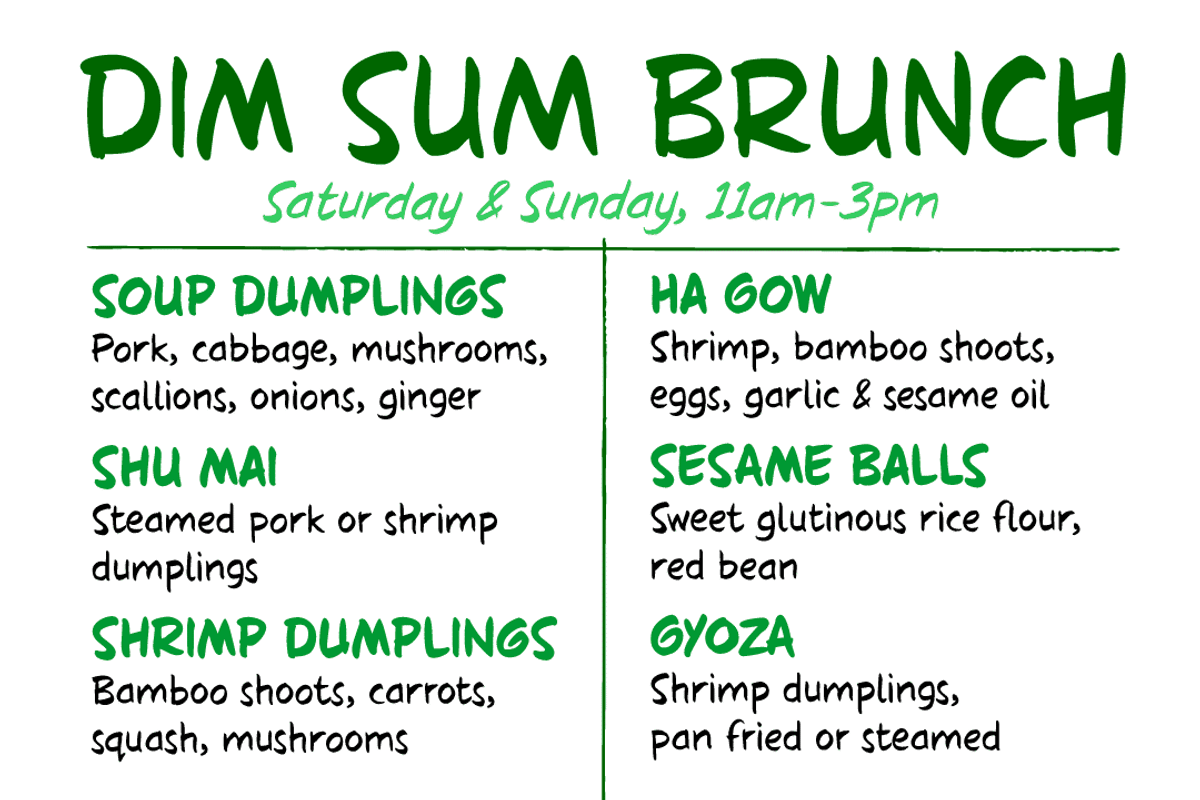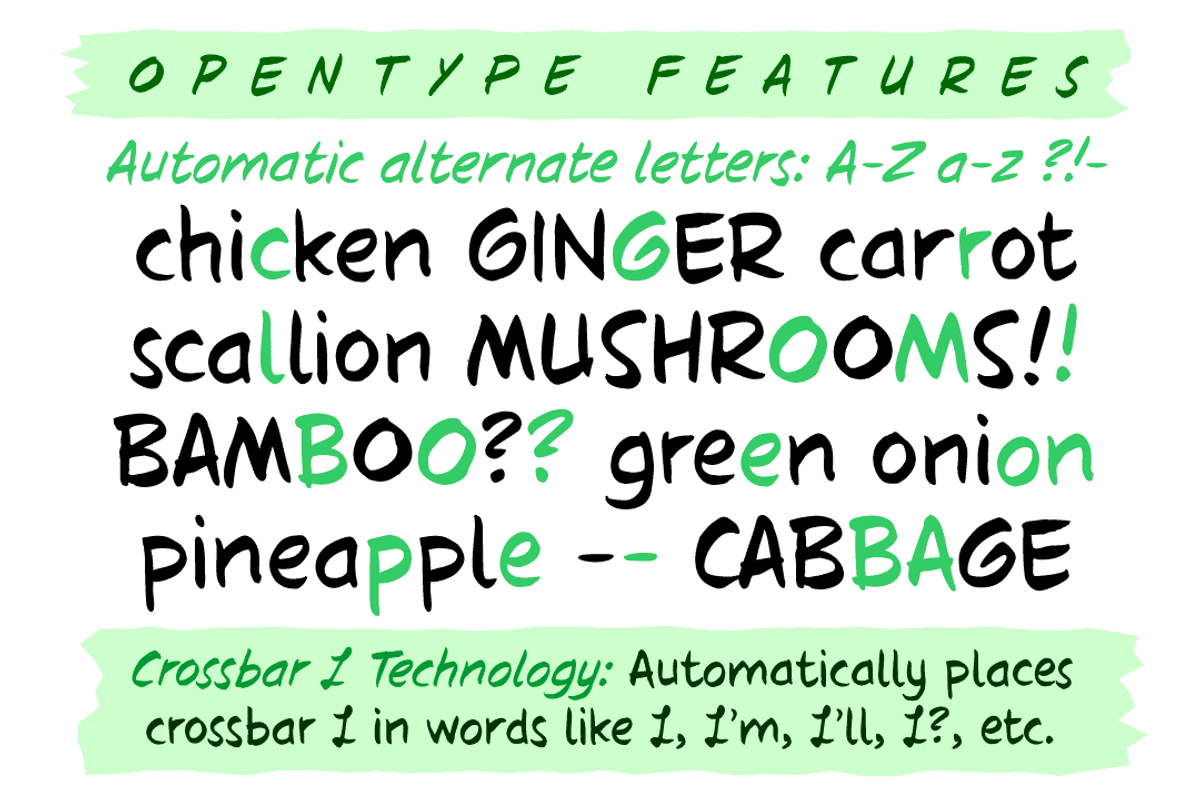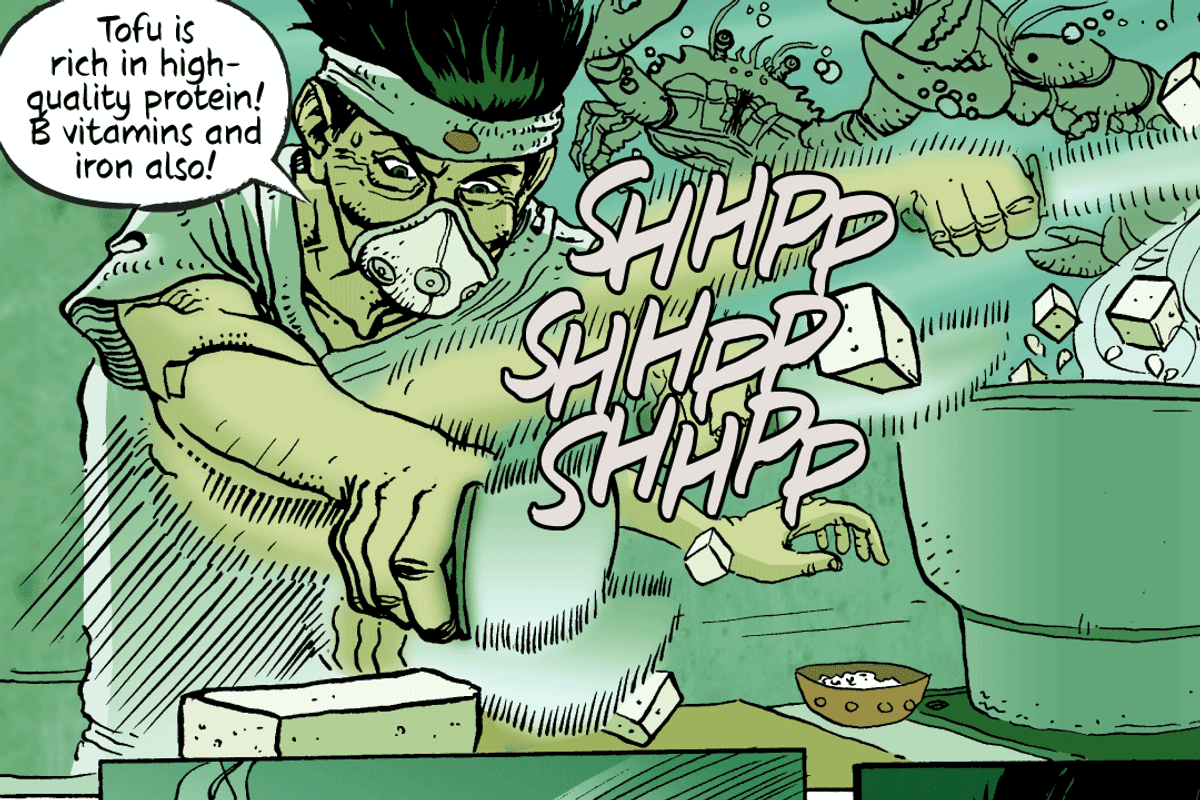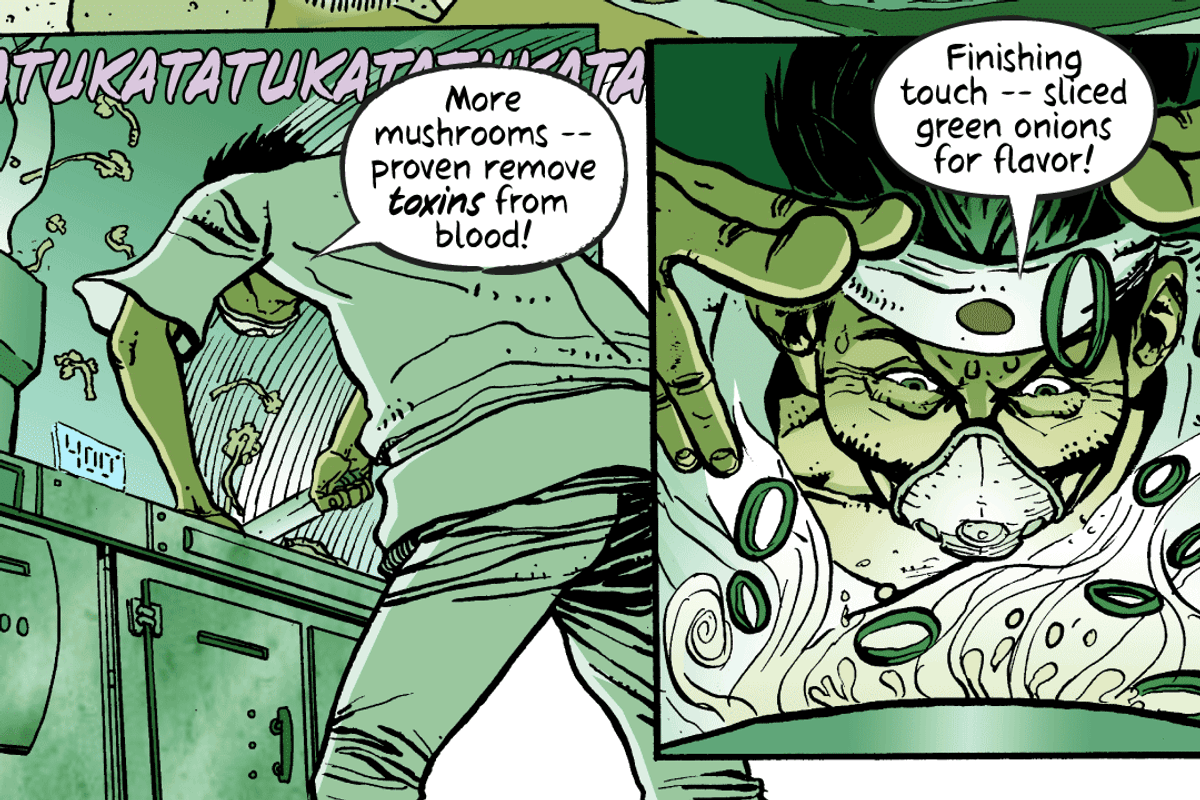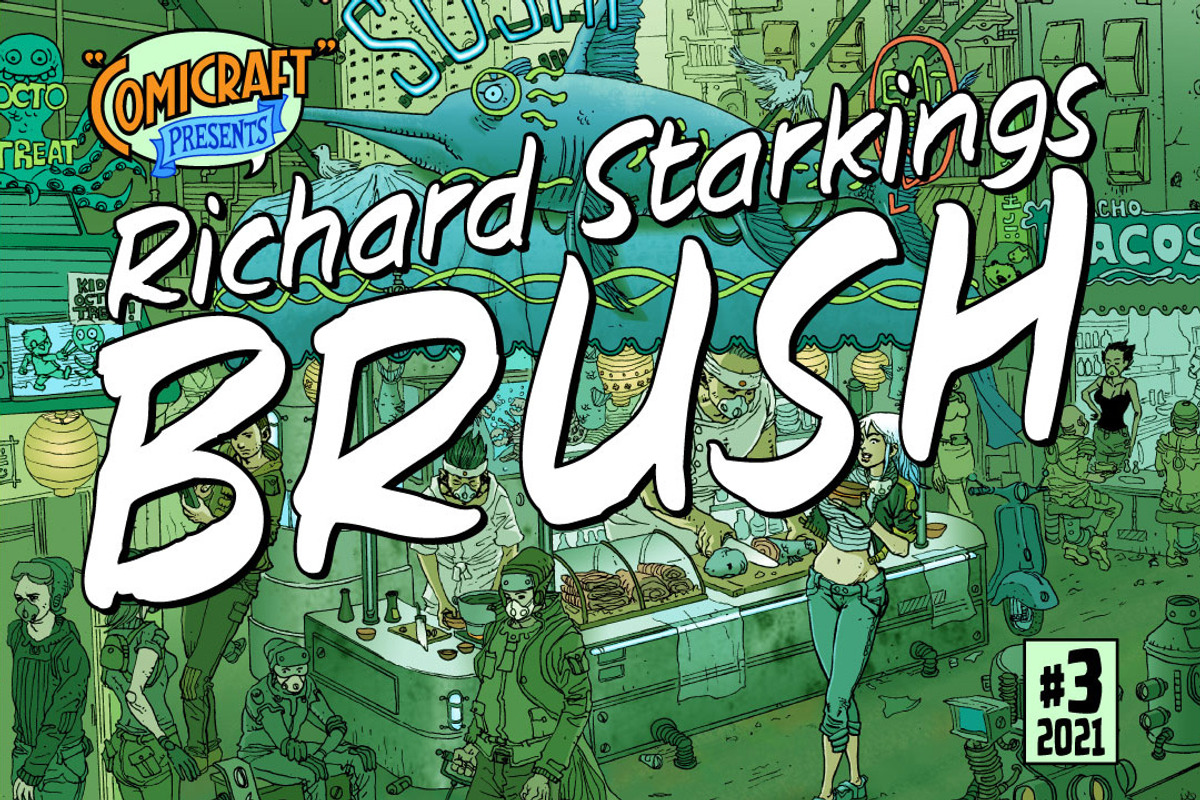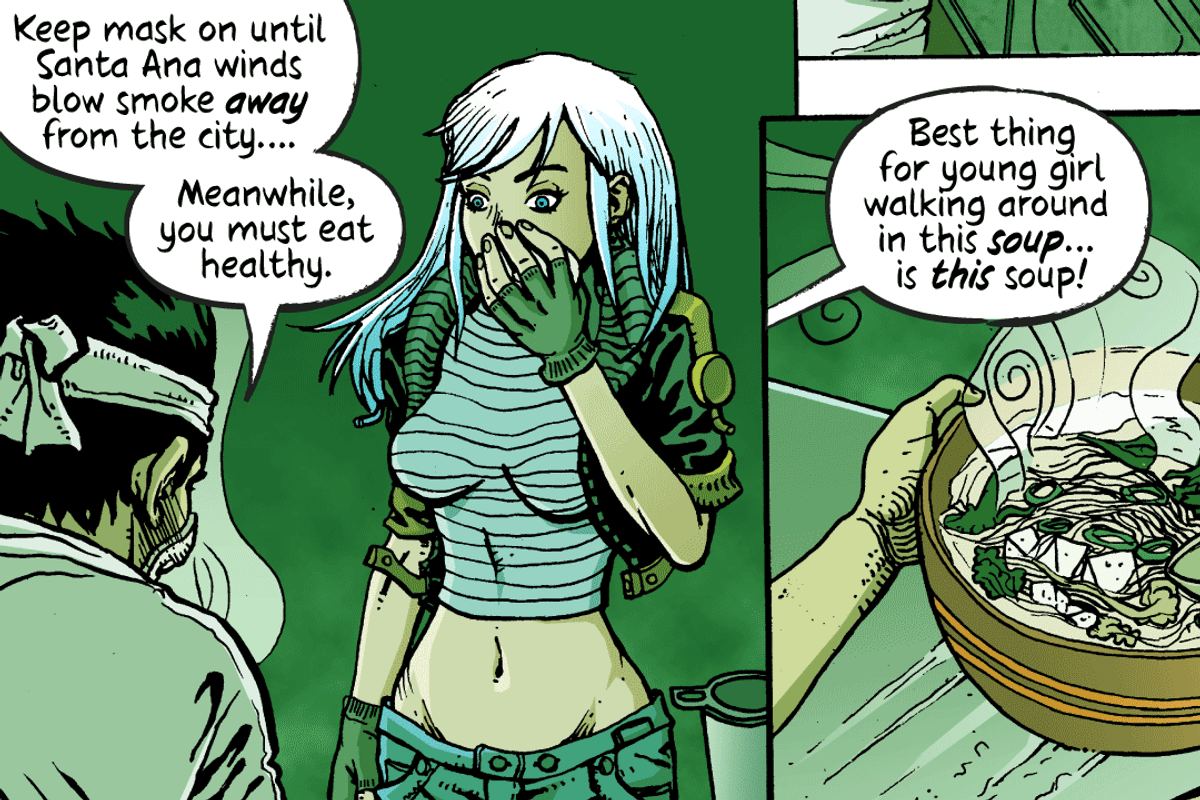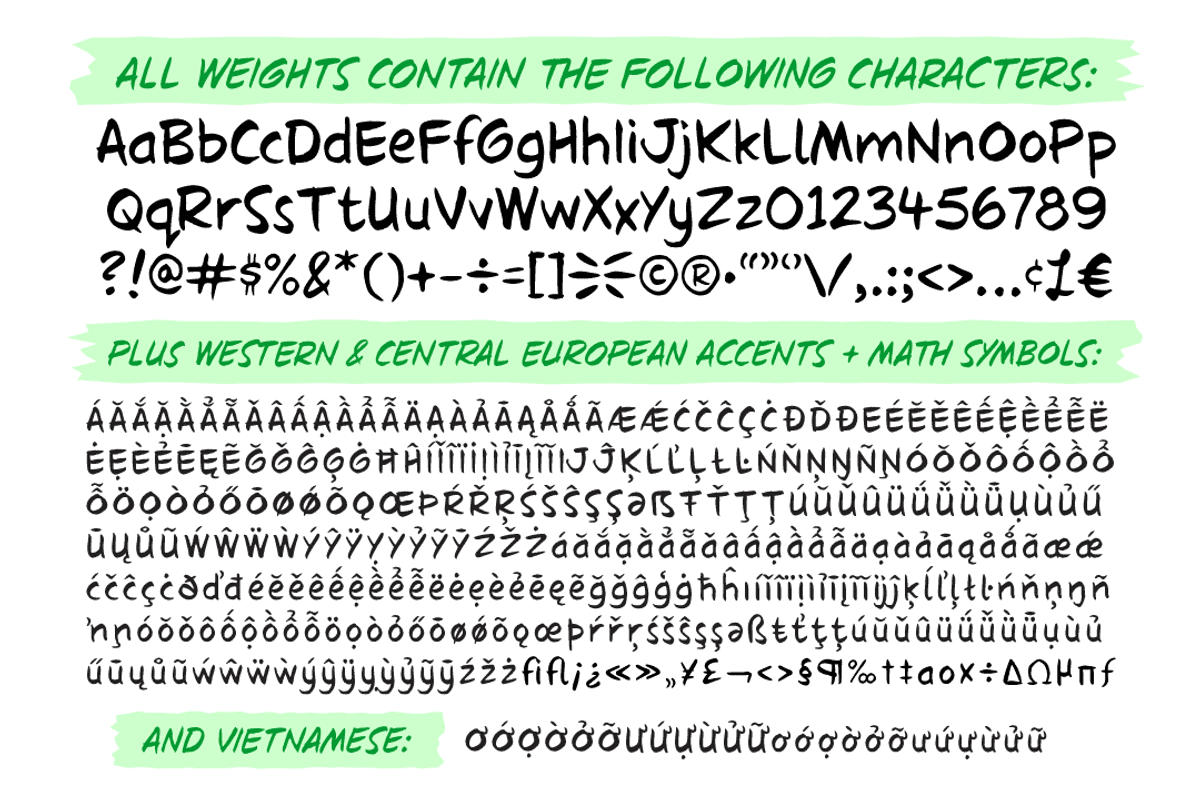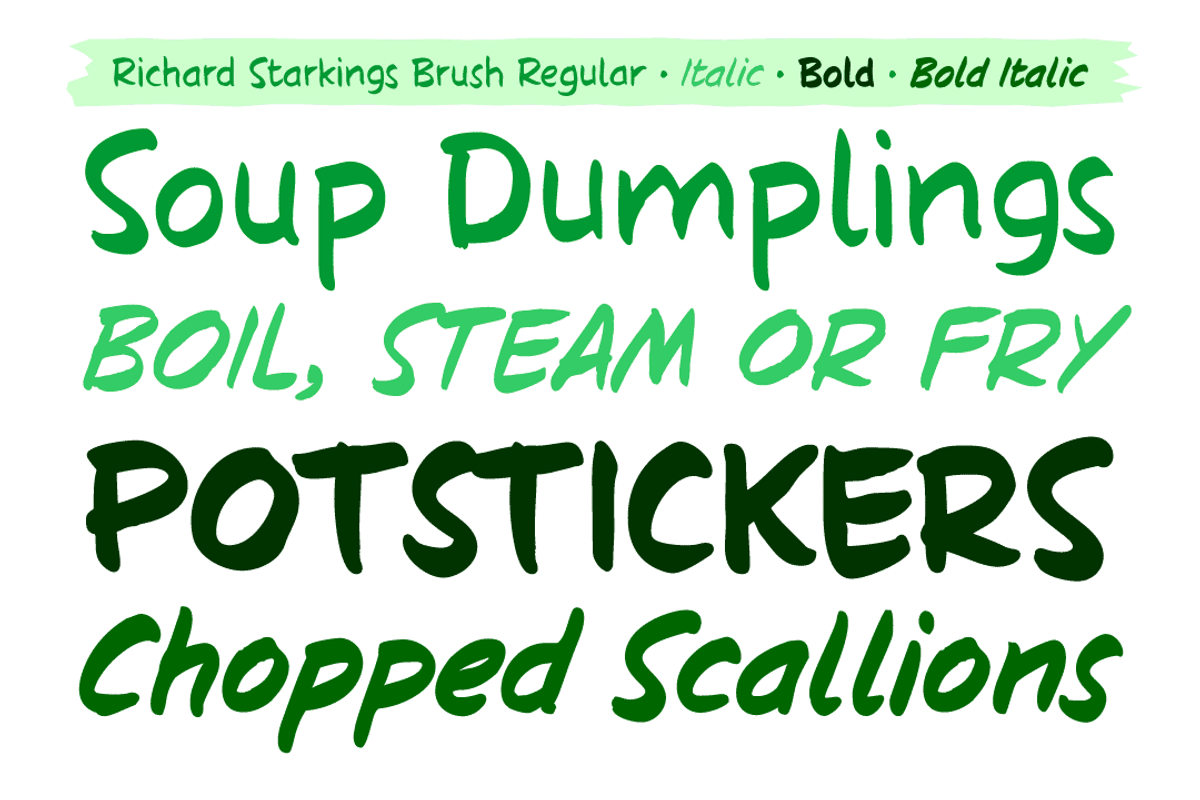
Richard Starkings Brush
If you’re looking for lettering that’s a little fancy-schmancy, a little stylish, lively and free flowing, comic book lettering legend Richard Starkings has a bold, bodacious and exciting pen style for your font library! Richard Starkings Brush is exuberant and yet also quietly confident -- originally rendered with a Brush Pen, this slick new addition to the Comicraft library puts the Flam in Flamboyant.
- Four weights (Regular, Italic, Bold & Bold Italic) with upper and lower case alphabets.
- Western and Central European international characters, Vietnamese characters
- Automatic Opentype alternates and Crossbar I Technology